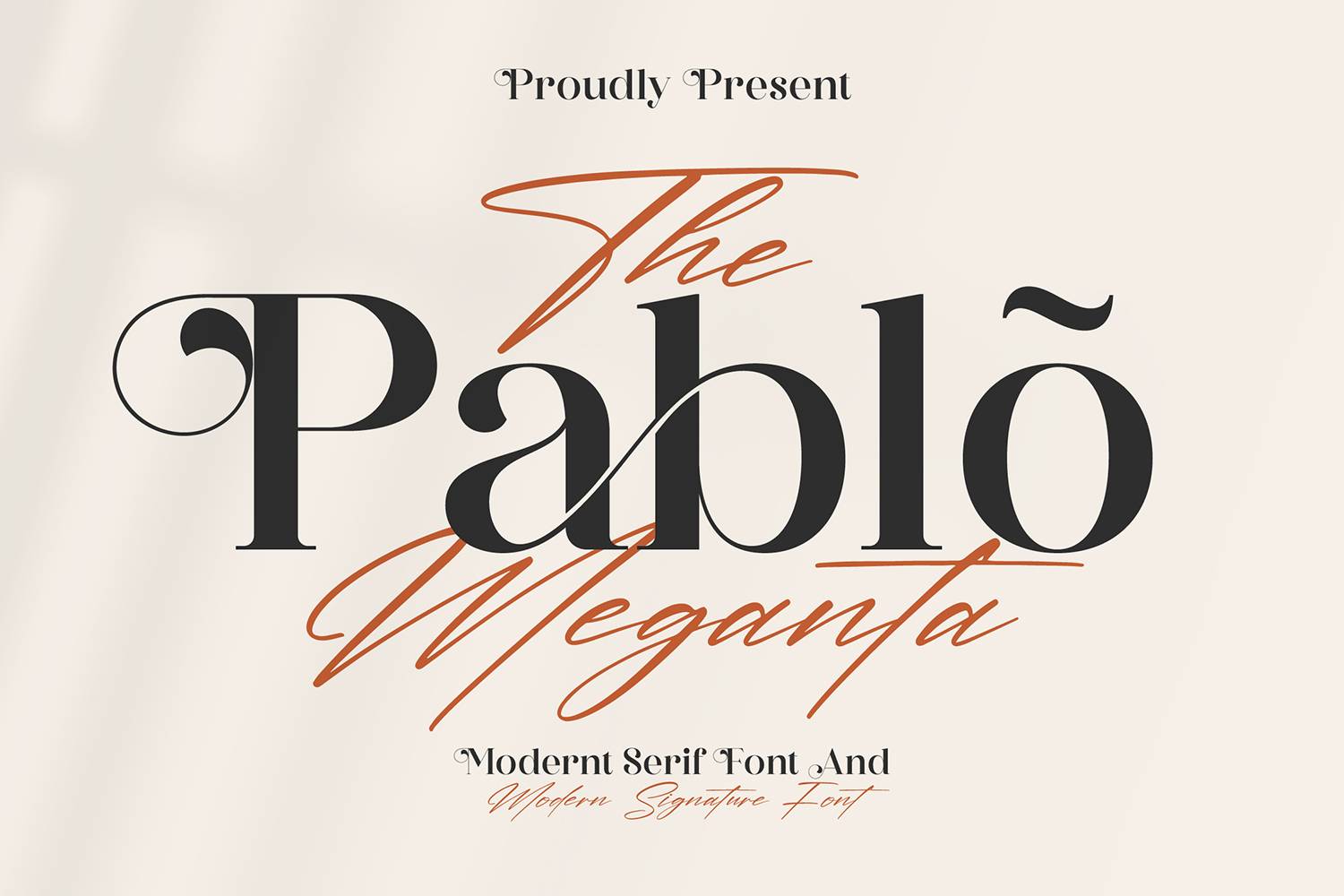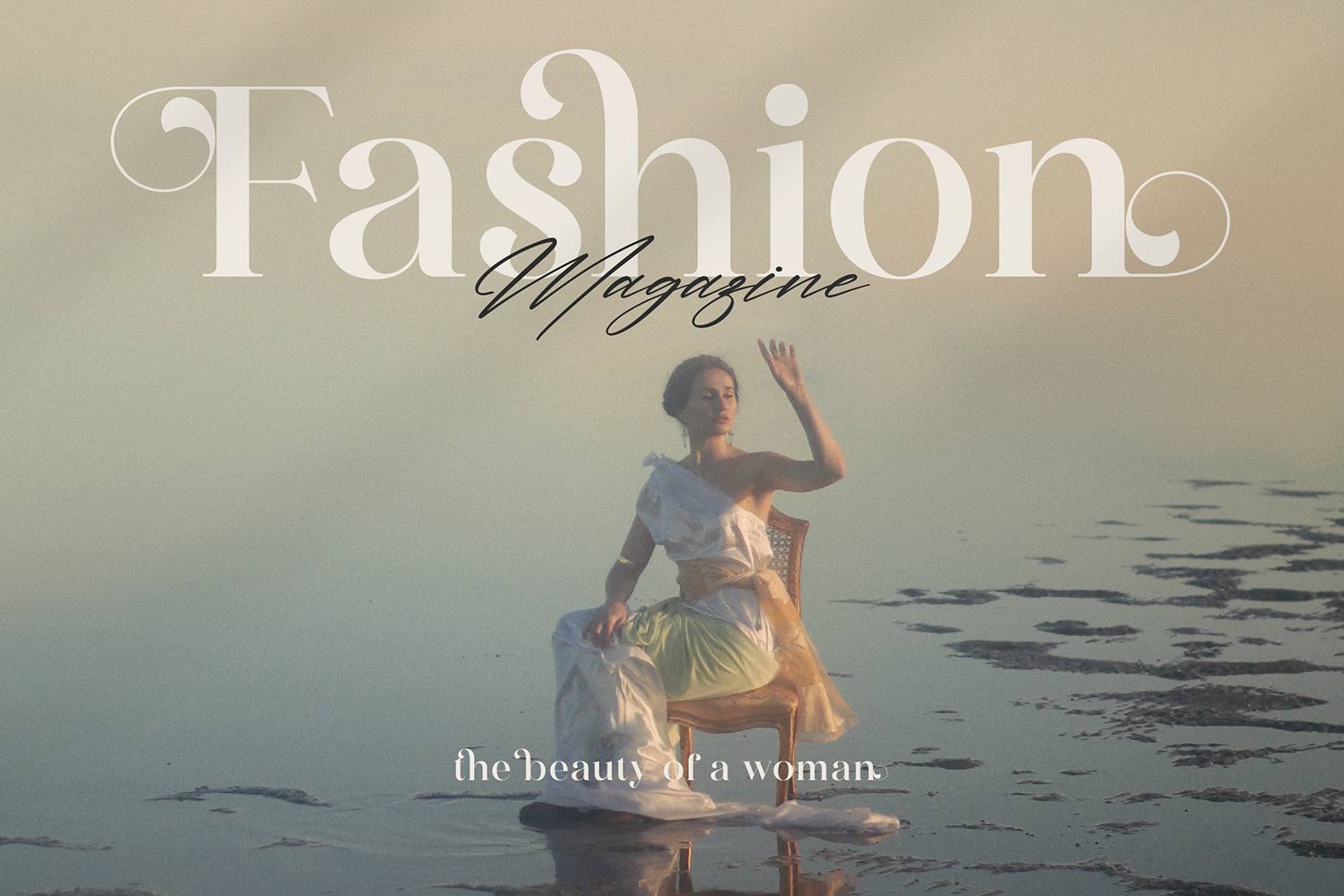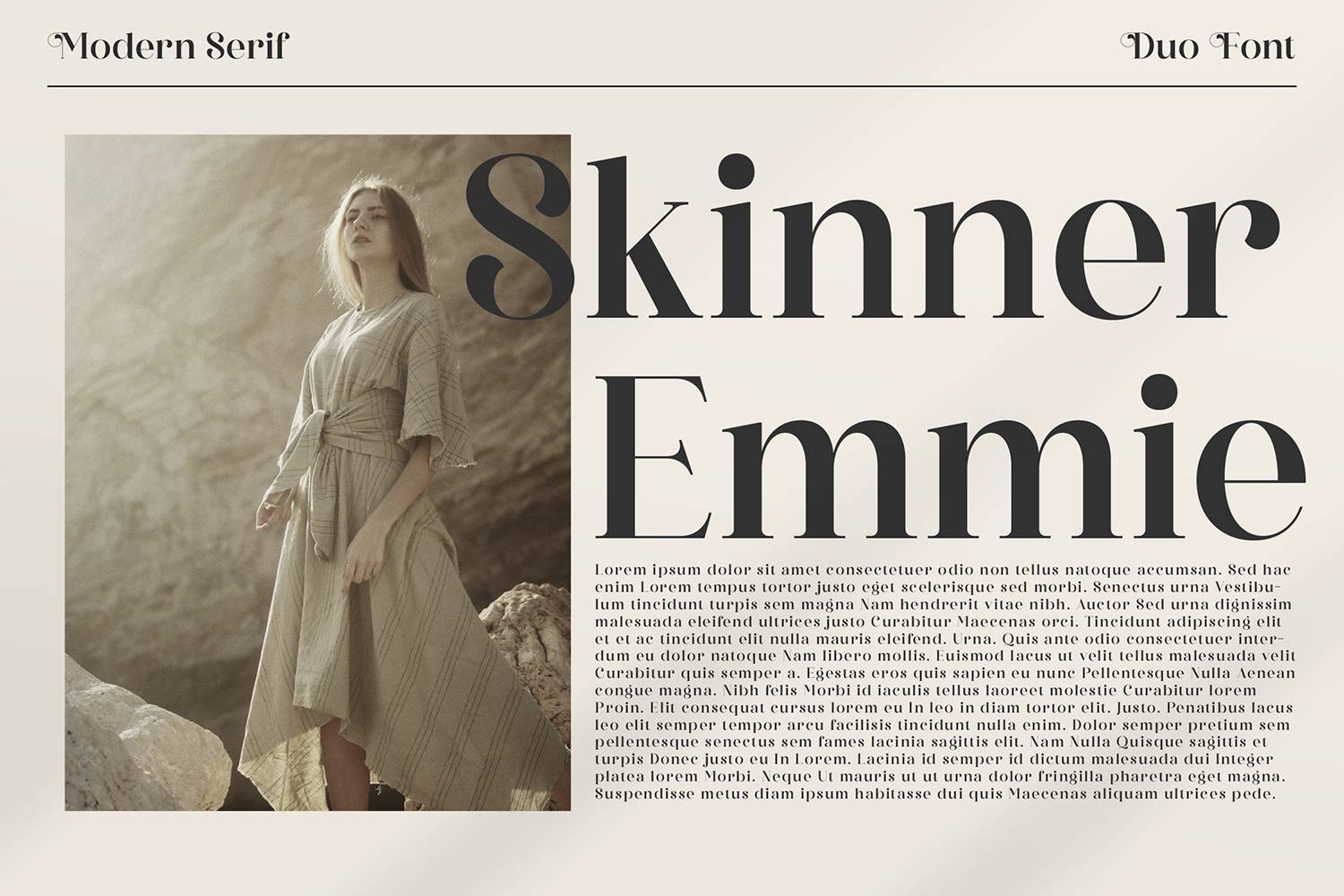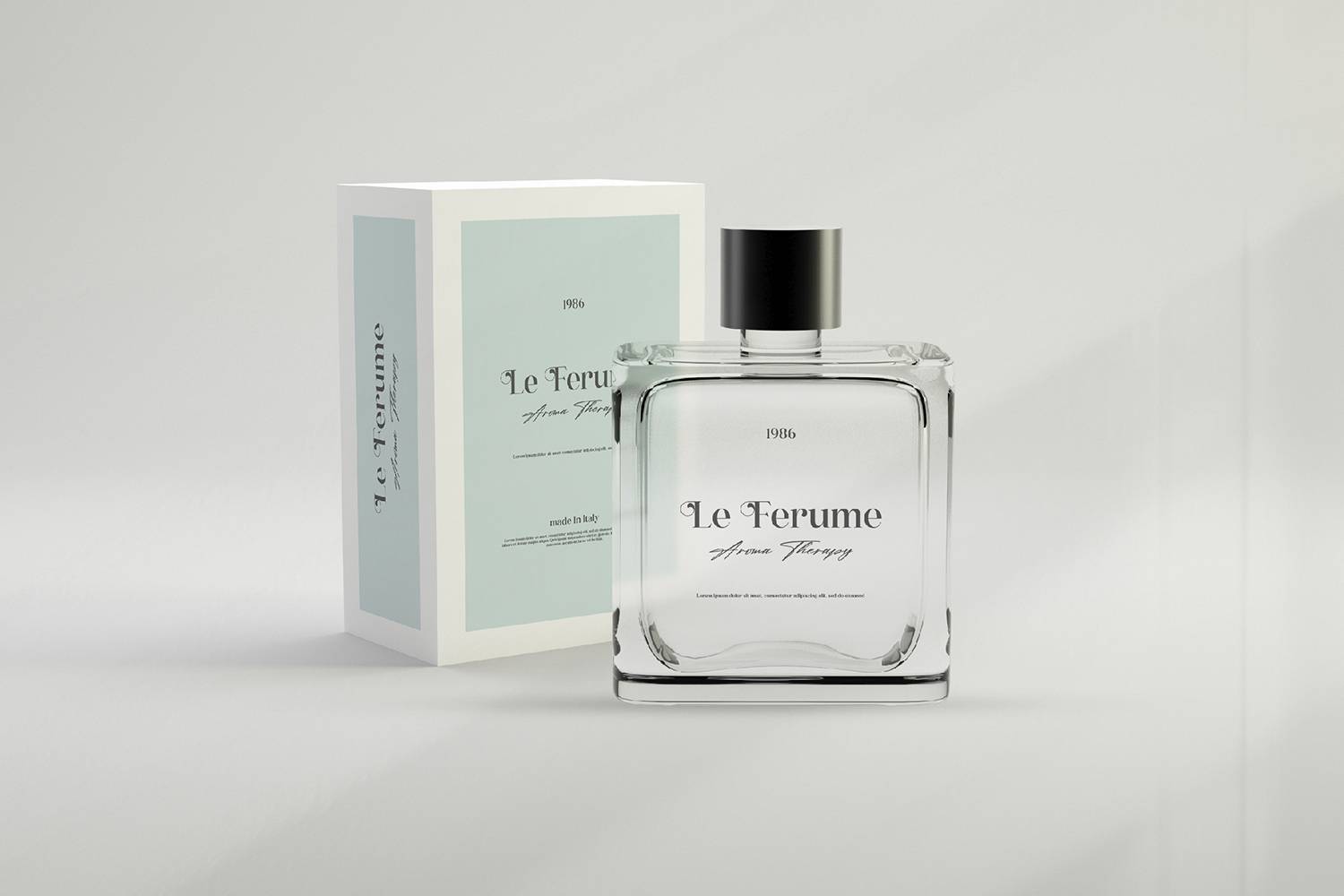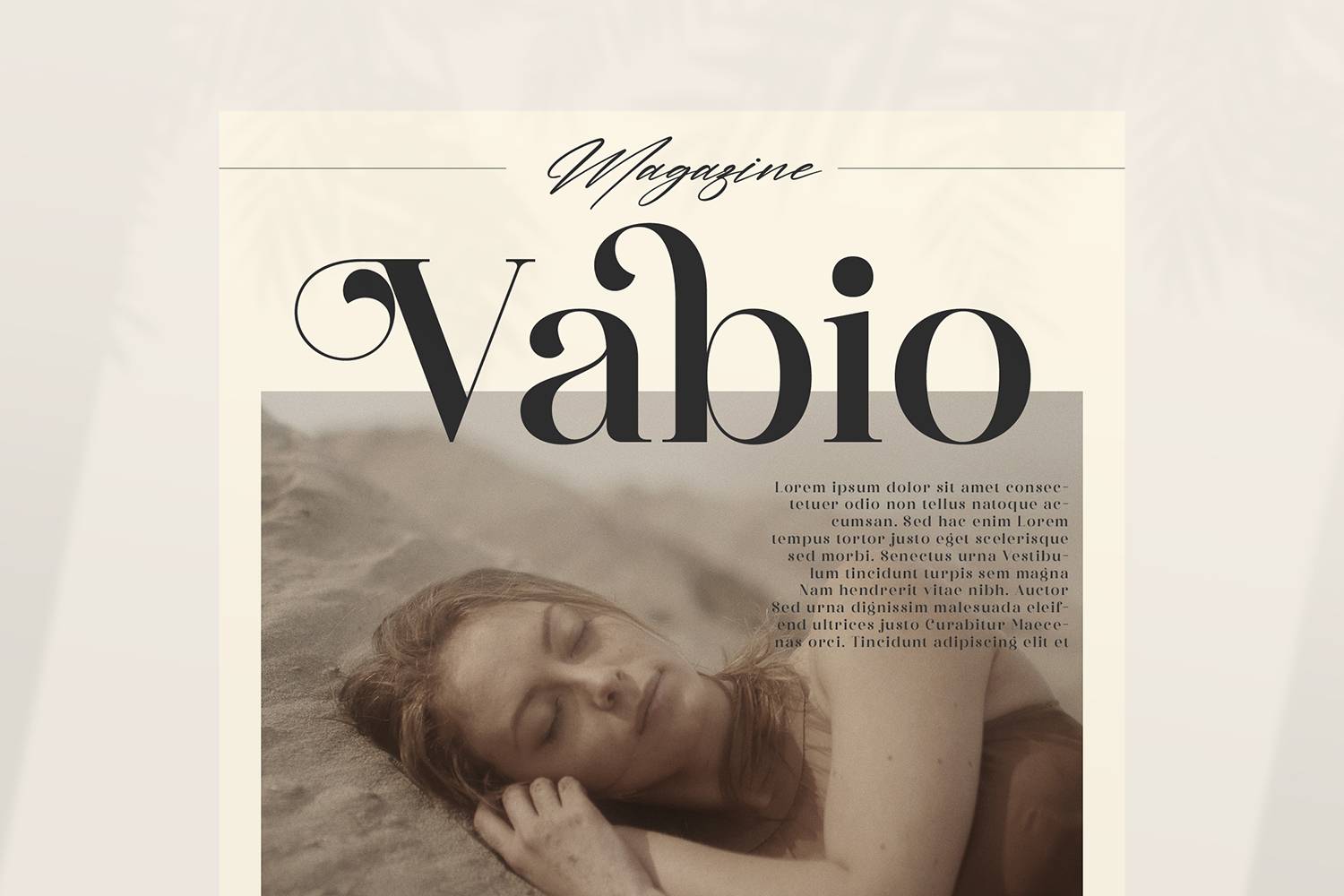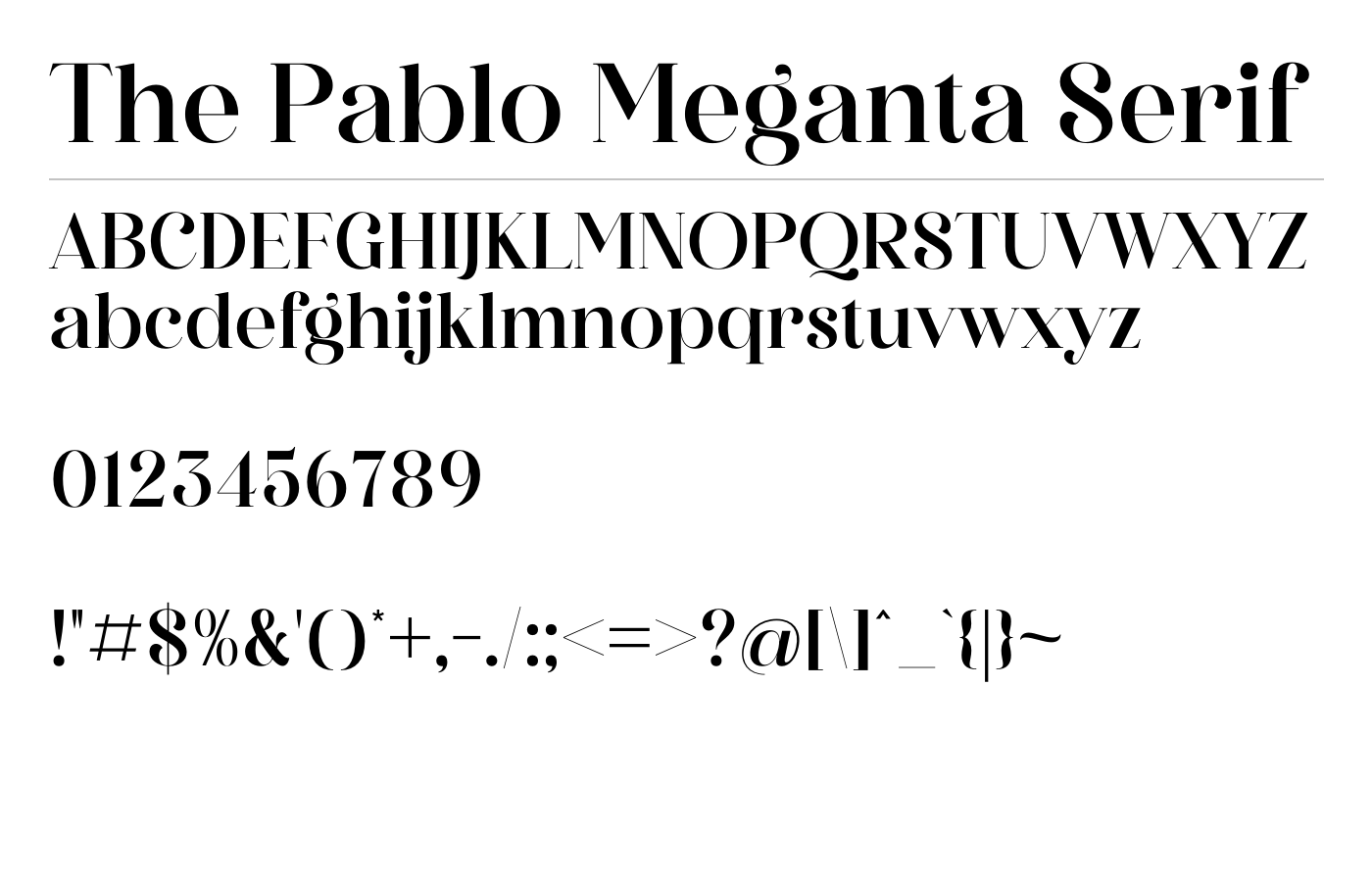
The Pablo Font is a refined modern serif with high contrast between thick and thin strokes, featuring elegant, tapered serifs and a moderate x-height that balances sophistication with readability. Its unique letterforms, including single-story 'a' and stylized terminals on letters like 'Q' and 'R,' give it a distinctive, luxurious character perfect for upscale branding, editorial headlines, and fashion packaging. This font combines classic charm with contemporary flair, making it ideal for designs that require a bold yet graceful presence.
The Pablo Font
About The Pablo Font